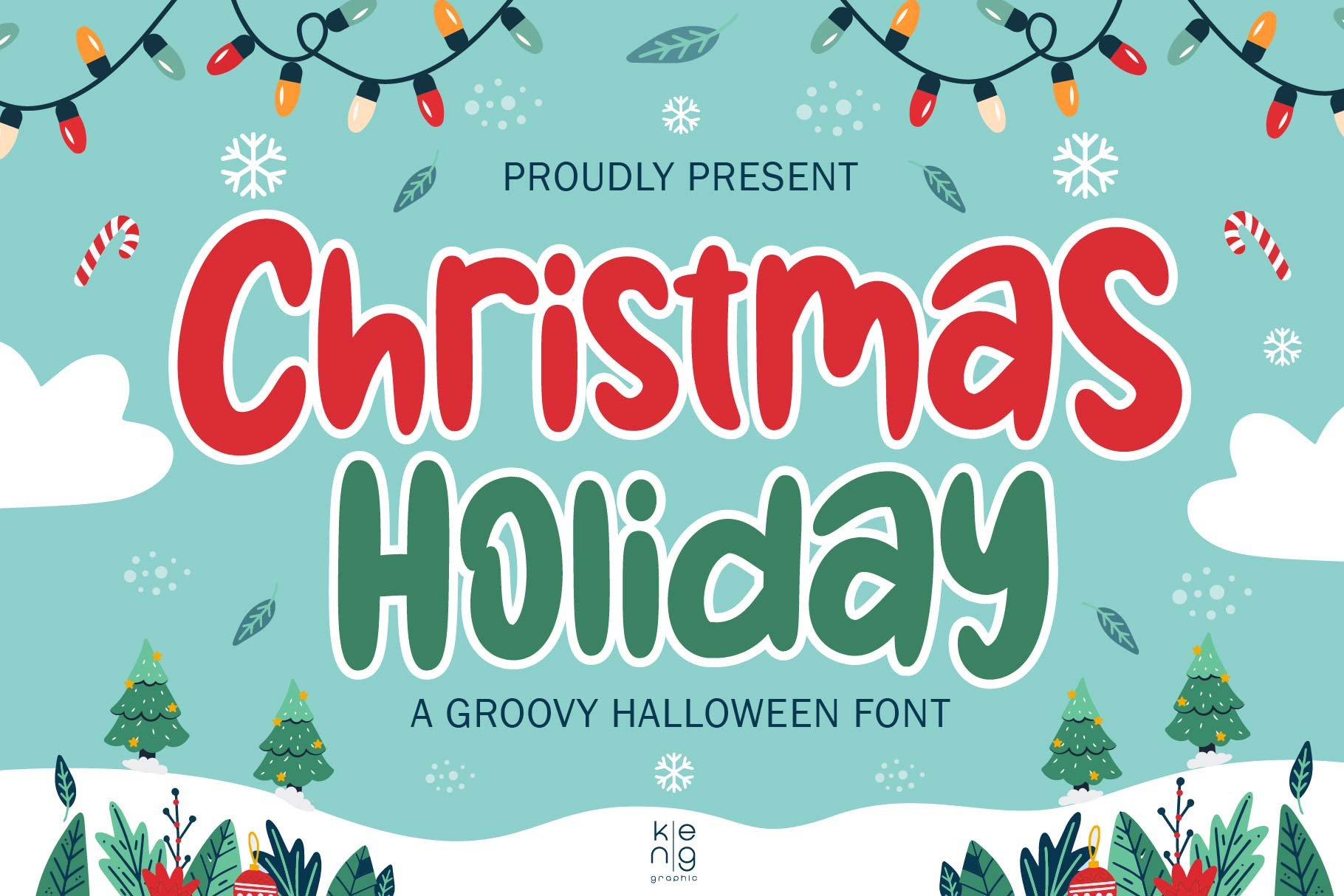
Christmas Holiday Font
Introducing Christmas Holiday, a striking display font perfectly tailored for the festive season. Christmas Holiday isn’t just a font; it’s an exquisite graphic booster, designed to elevate any item it graces, from T-shirts to cards, bags to mugs, and everything in between. Whether you’re crafting holiday-centric designs or simply capturing the spirit of Christmas in your everyday items, Christmas Holiday is a font that envelopes the essence of the season, seamlessly blending style and celebration.